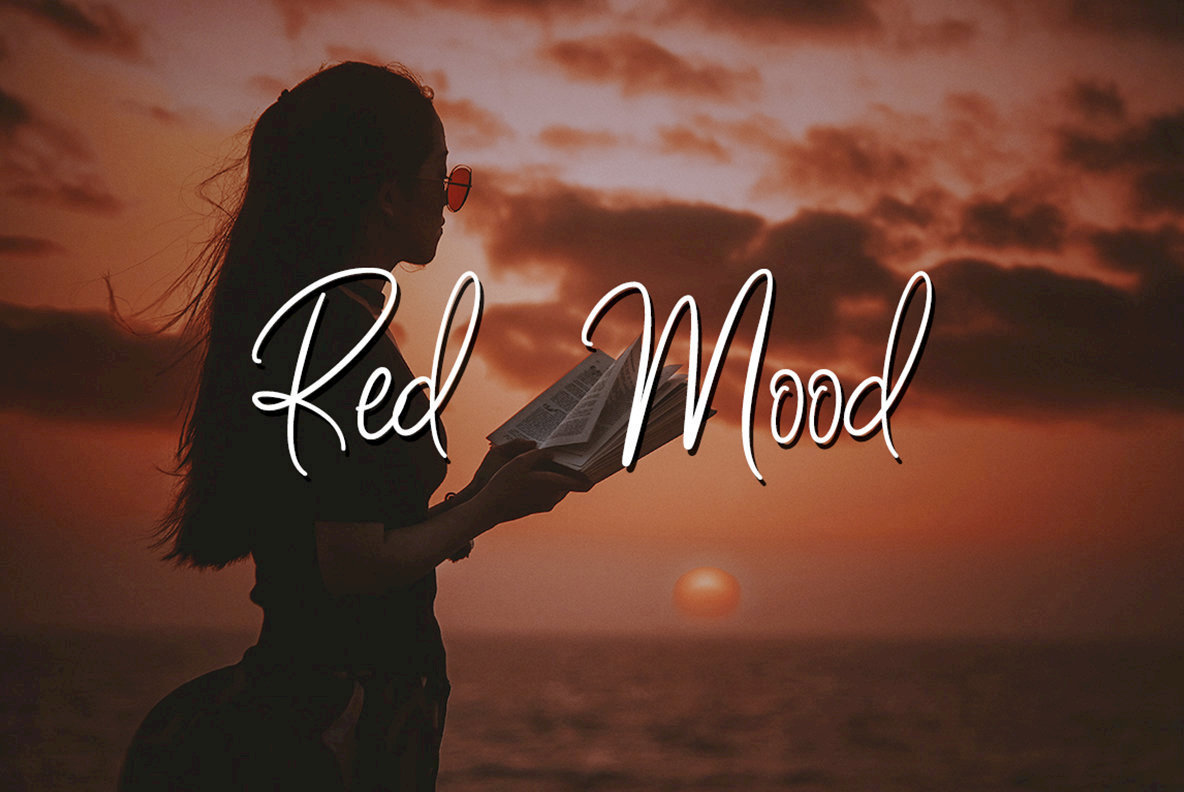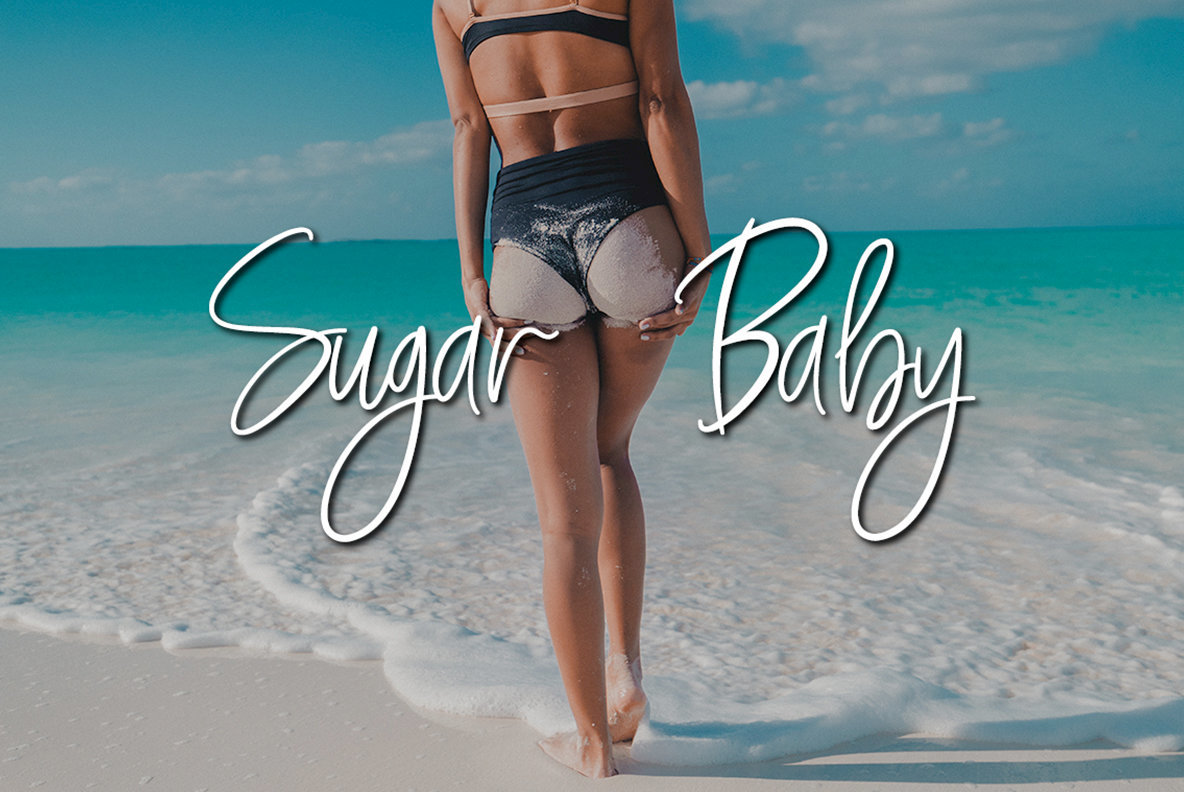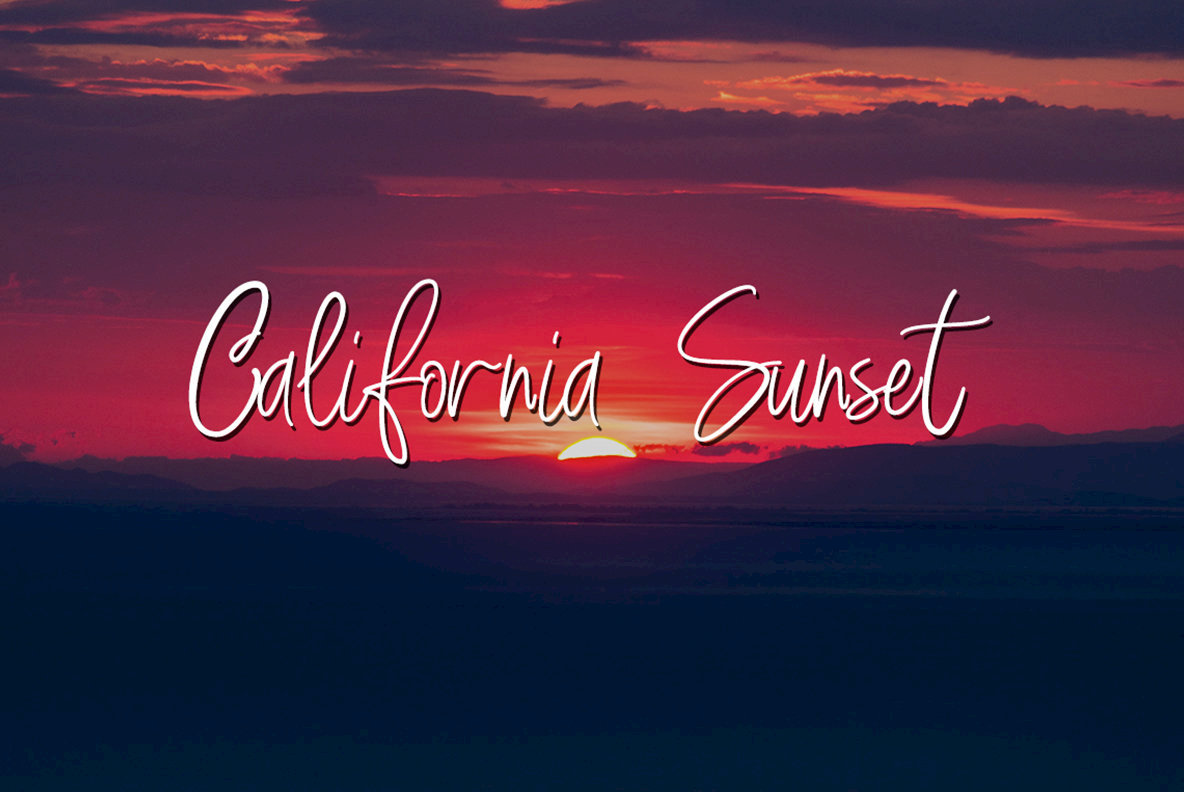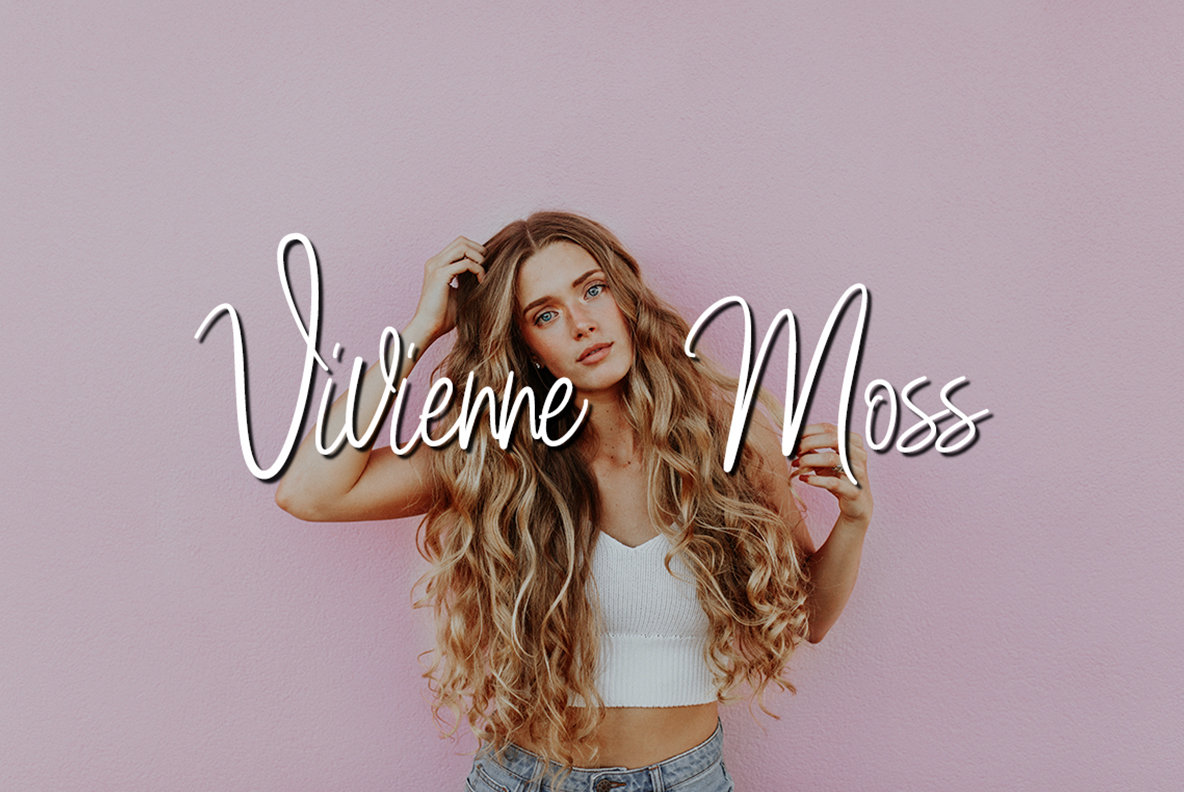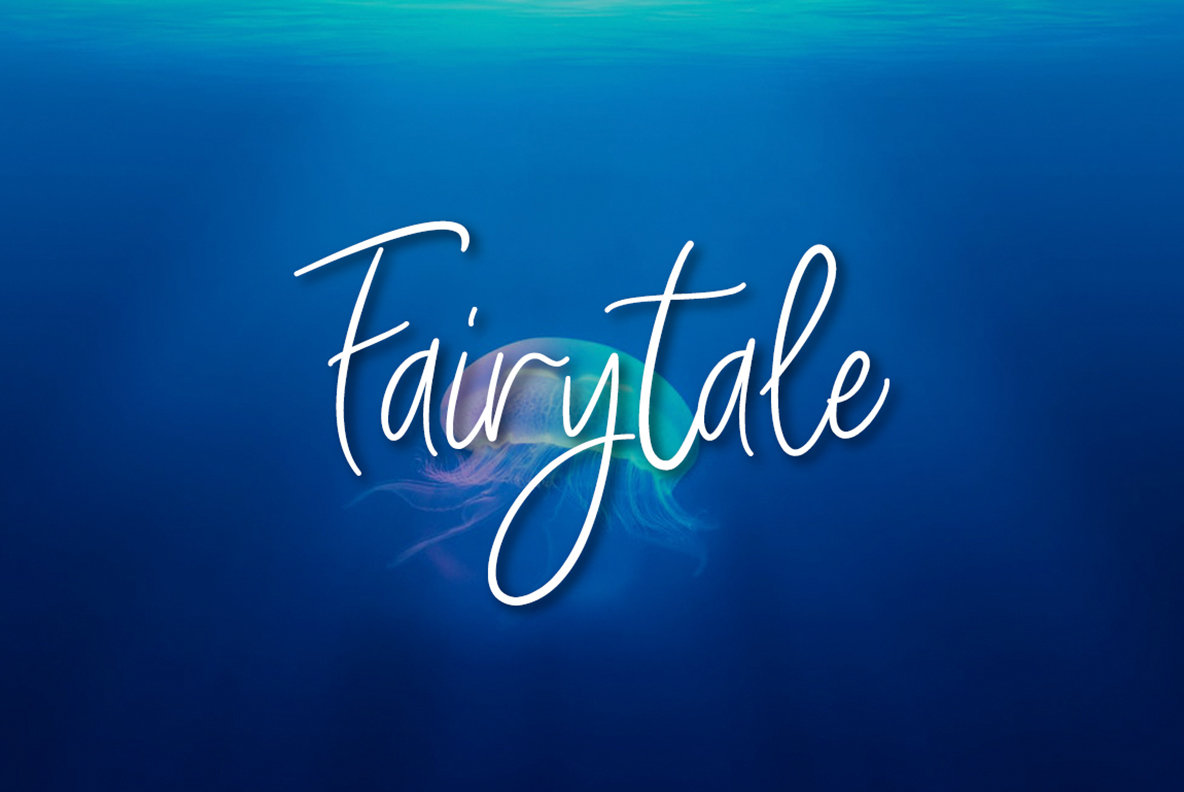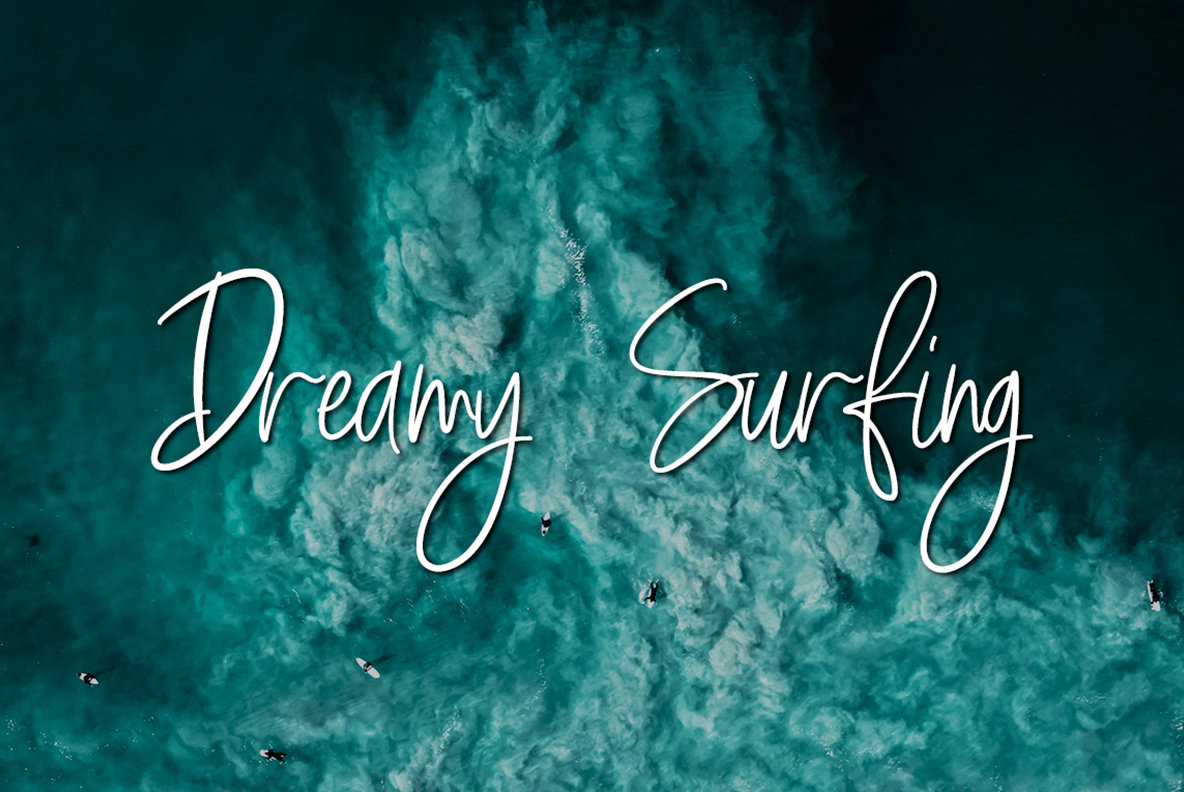
Lullaby Font
Lullaby Regular
Designed by Nick Asphodel, Lullaby is a handstylish font crafted to elevate your creative projects. Its flowing characters bring a touch of elegance and a modern aesthetic to any medium, making it ideal for use in logos, badges, packaging, headlines, and posters. Whether you're designing t-shirts, greeting cards, or wedding invitations, Lullaby offers a versatile style that enhances your message.Lullaby: The Perfect Blend of Modern Design and Calligraphy